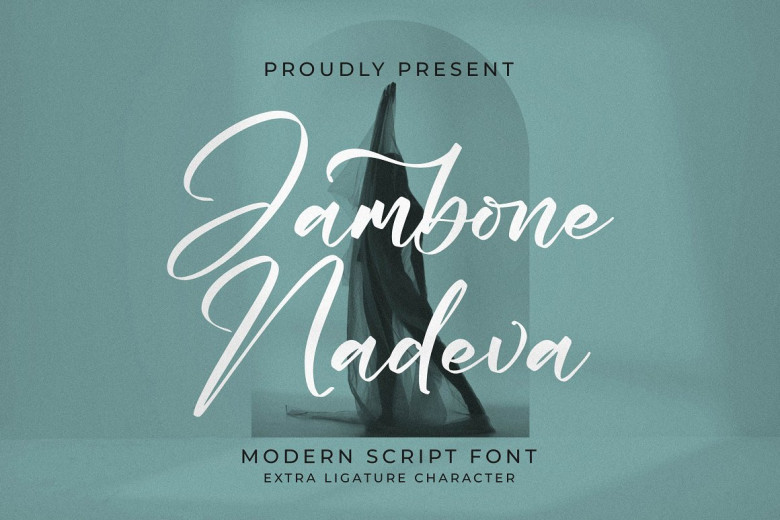
Jambone Nadeva Font
Integritype Studios’ Jambone Nadeva Modern Script Font is a premium Modern Script font ideal for logos, branding, homewares design, product packaging designs, mugs and quotes, posters, shopping bag t-shirt covers as well as business cards greeting cards invitation cards labels photography or any luxury project that requires high-end taste.
Jambone Nadeva Script Font